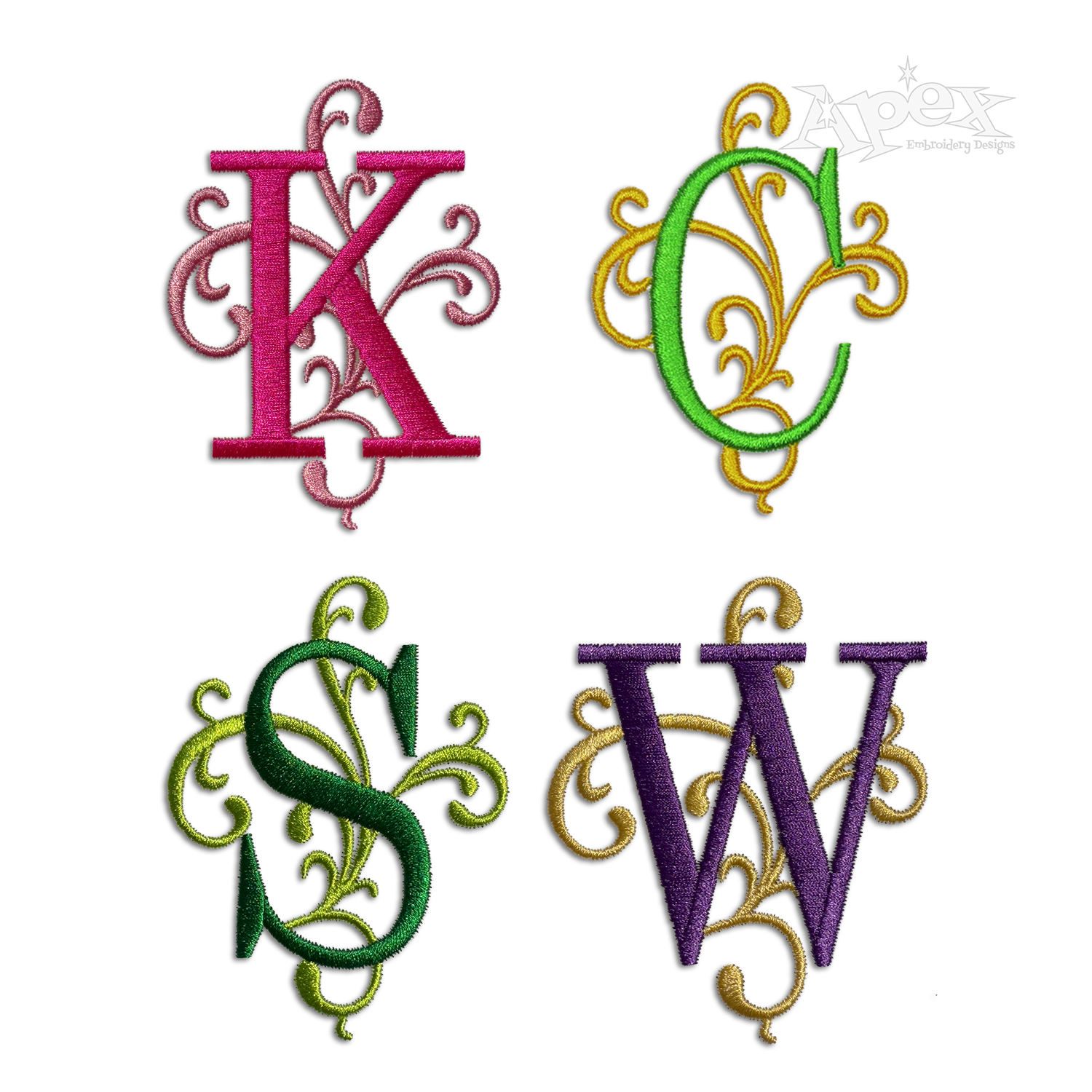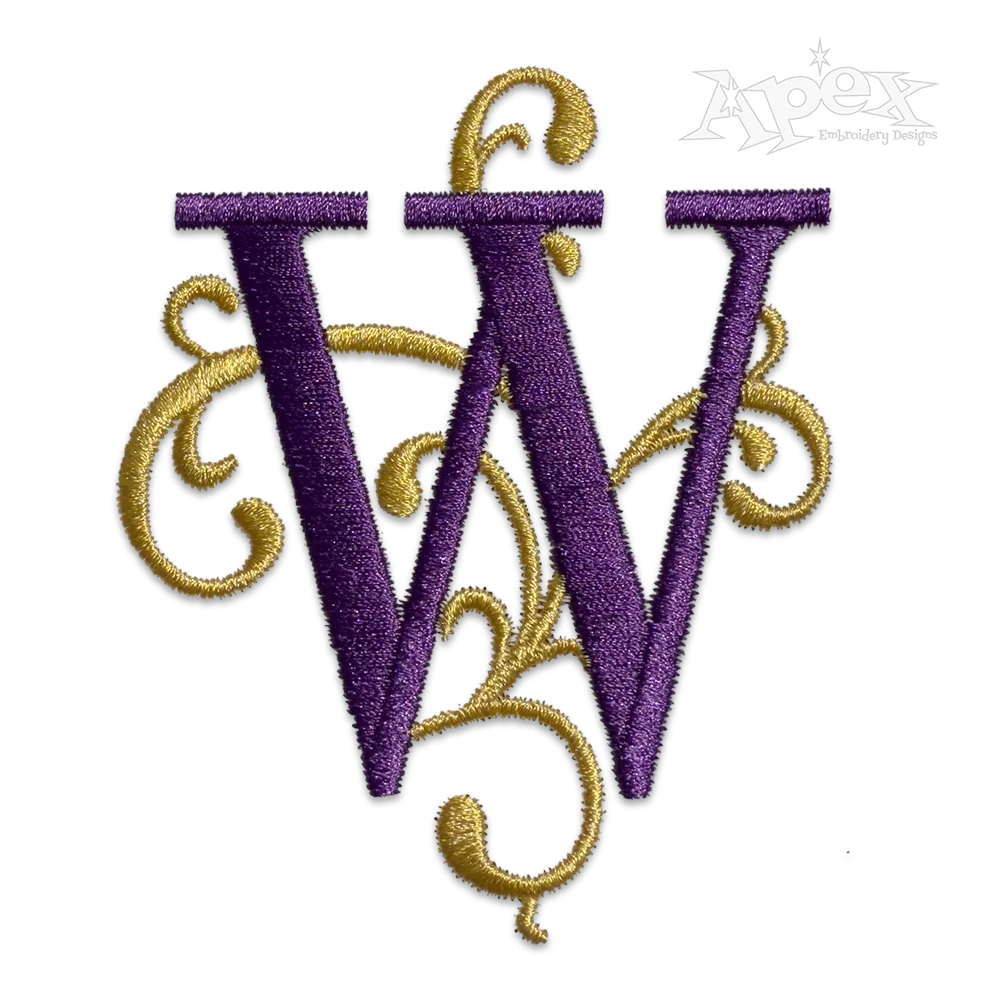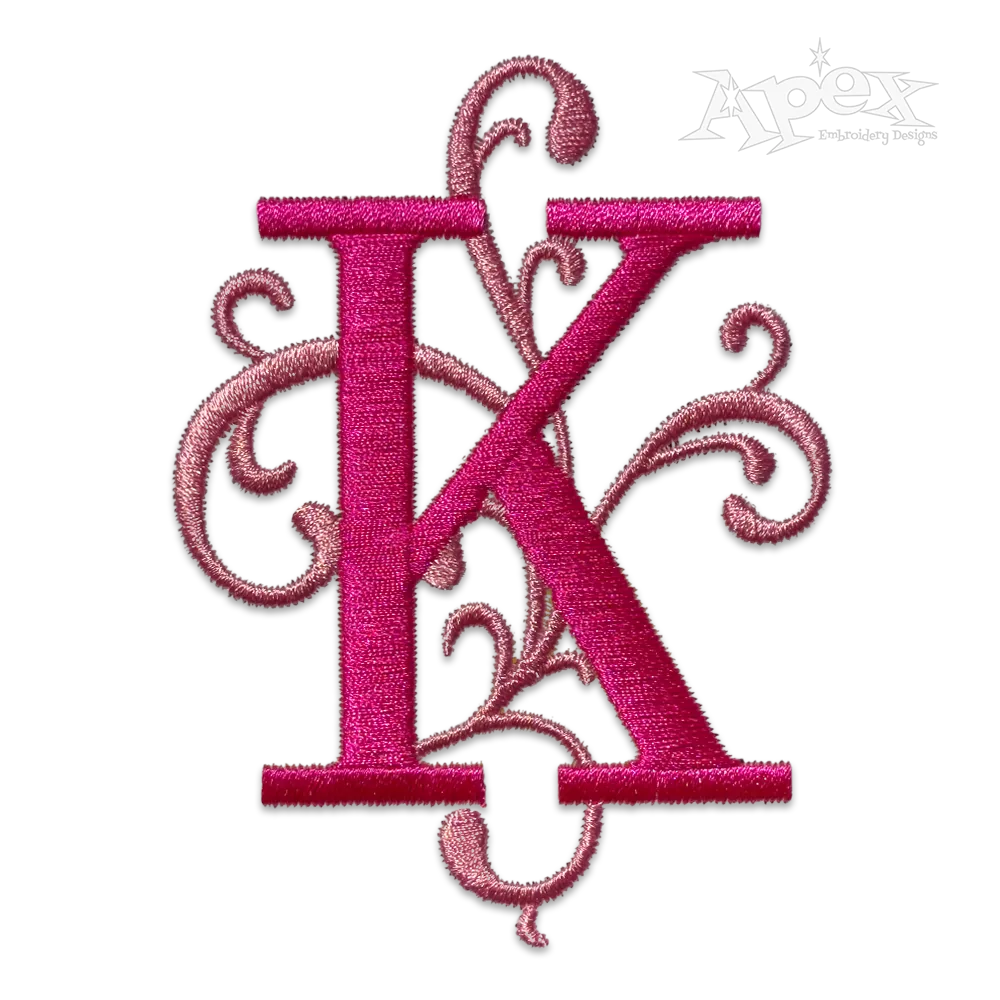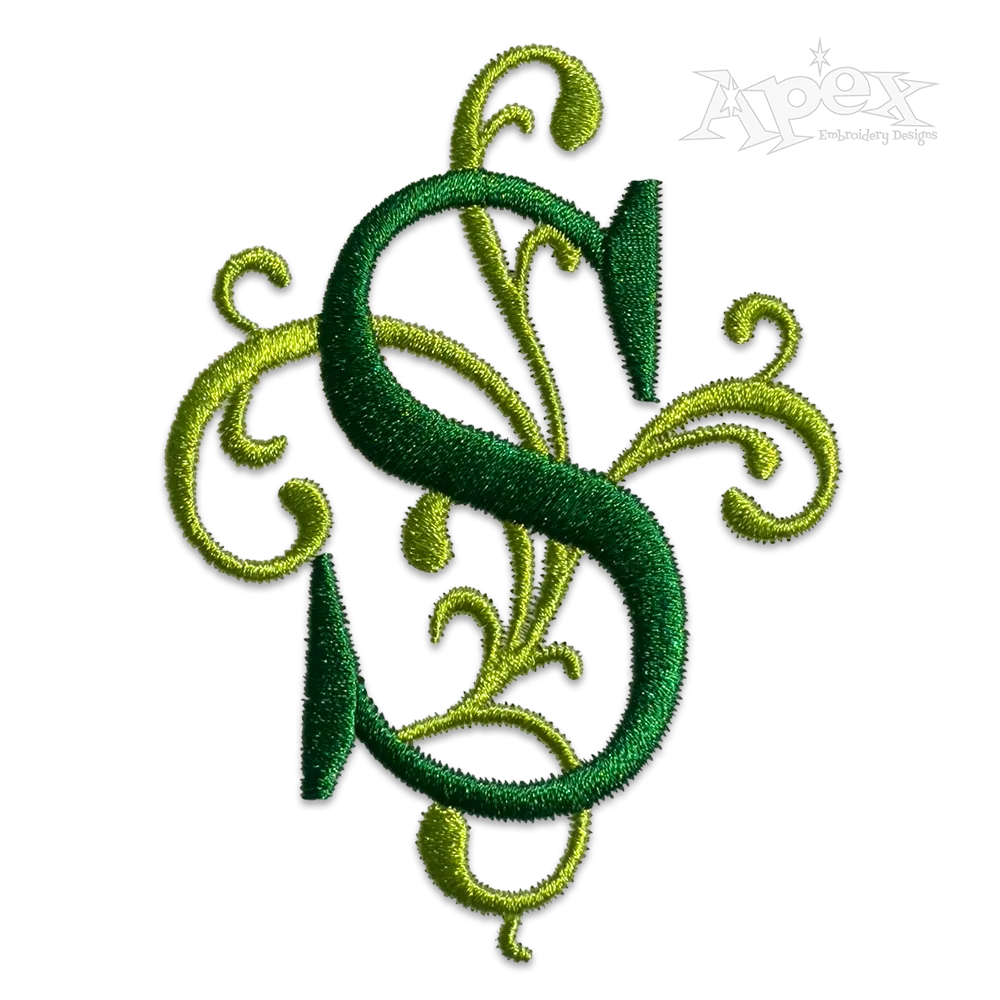
Floral Freida Embroidery Font
Born from the quiet elegance of vintage botanical sketchbooks, the Floral Freida Embroidery Font marries the stately grace of classic lettering with the soft romance of garden blossoms. When sketching this typeface, our digitizing studio sought to capture the effortless charm of winding floral vines caressing timeless letterforms. Every petal, sprig, and letter curve is drawn to look as though wild garden flora naturally blossomed around the stem of each letter. The finished embroidery emanates a poetic, heirloom charm that turns simple textiles into cherished, personalized keepsakes filled with artisan character.
Project Ideas for Floral Freida Embroidery Font
Floral Freida Craft & Letterform Details
Digitizing a font entwined with organic florals requires an exquisite balance between structural typography and botanical freedom. If the floral accents are too heavy, the base letterform is lost; if the floral accents are too light, they fail to evoke that lush garden ambiance. We digitized the main letter stems with smooth, continuous satin stitch columns that glide effortlessly around curves and serifs, ensuring optimal thread sheen and clean, crisp legibility.
The companion leaves, tiny petals, and winding vine tendrils feature customized density underlays and adjusted push-pull compensation. This deliberate craftsmanship prevents the floral elements from distorting the underlying letters or crowding the textile, allowing every stitch to lay flat, supple, and beautifully defined. The stitch path has been meticulously sequenced to minimize trims and eliminate awkward jump stitches, delivering a polished, hand-stitched look that honors traditional needlework with modern machine perfection.